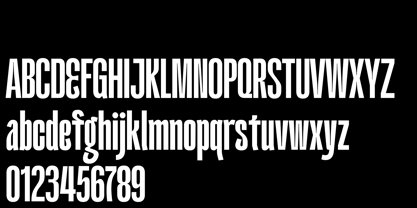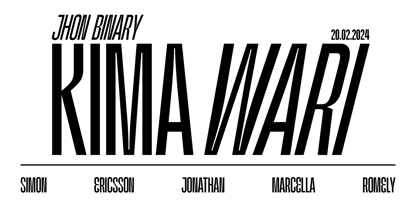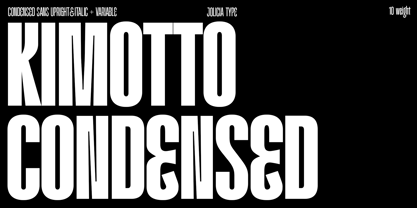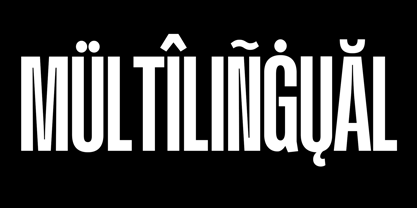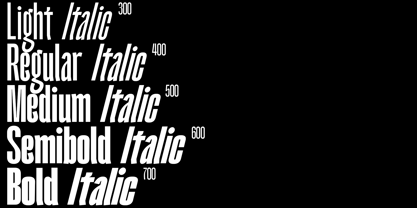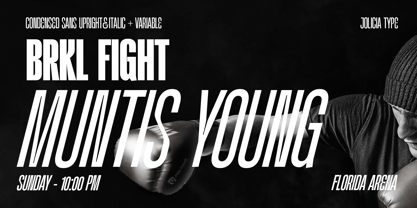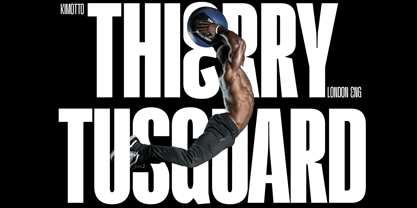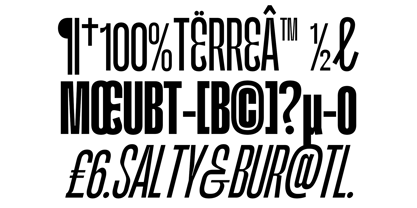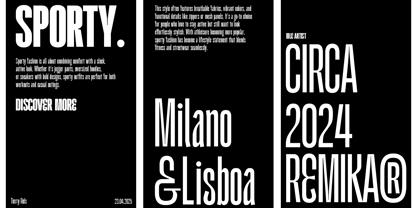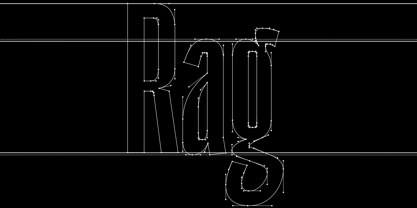
Kimotto Condensed
by Jolicia Type
The Kimotto Condensed Font Family was designed by Laire Banyu and published by Jolicia Type. Kimotto Condensed contains 11 styles and family package options.
Kimotto Condensed is a modern sans-serif condensed typeface designed to be both bold and space-efficient. With 10 weights ranging from Light to Bold, plus true Italics at a 15° angle, it offers maximum versatility for any design project.
Its sleek, narrow letterforms make Kimotto perfect for headlines, posters, branding, packaging, editorial layouts, and user interfaces where space and clarity matter most. Each character is carefully crafted to maintain high legibility, even in tight spaces.
Available in Variable Font format, Kimotto allows smooth customization of weight and slant, giving you full control over your typography with a clean